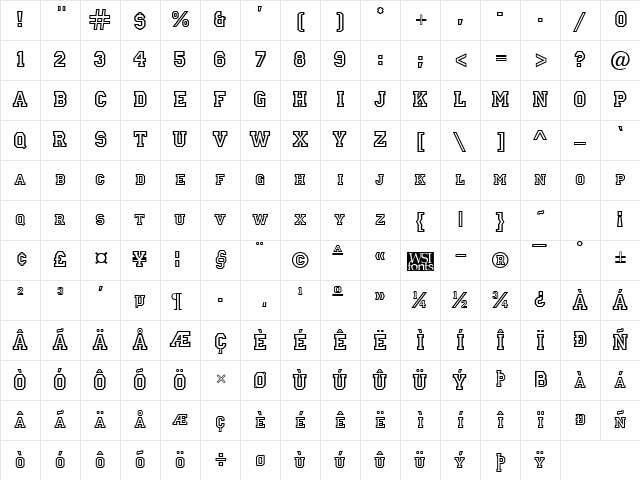
Letterman Regular
Letterman Family
Design Context for Letterman
Letterman is a composed and adaptable typeface that performs quietly and consistently across a wide range of design contexts.